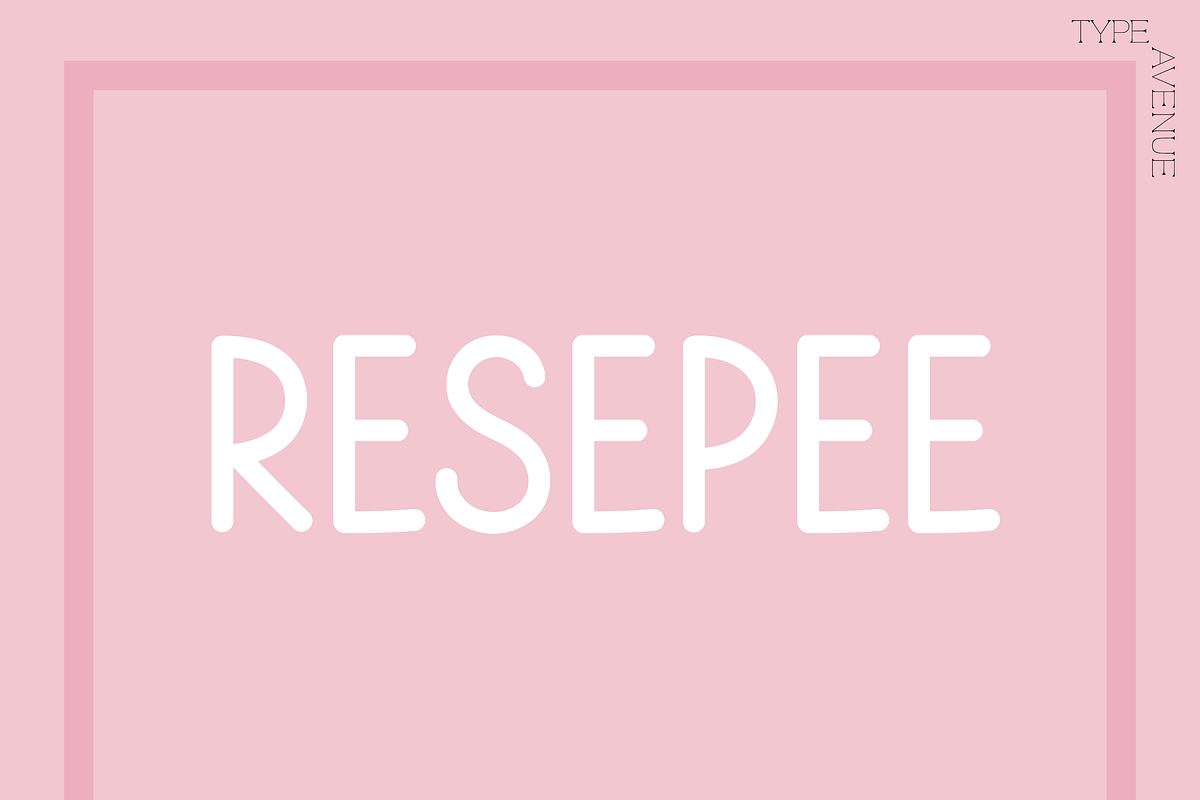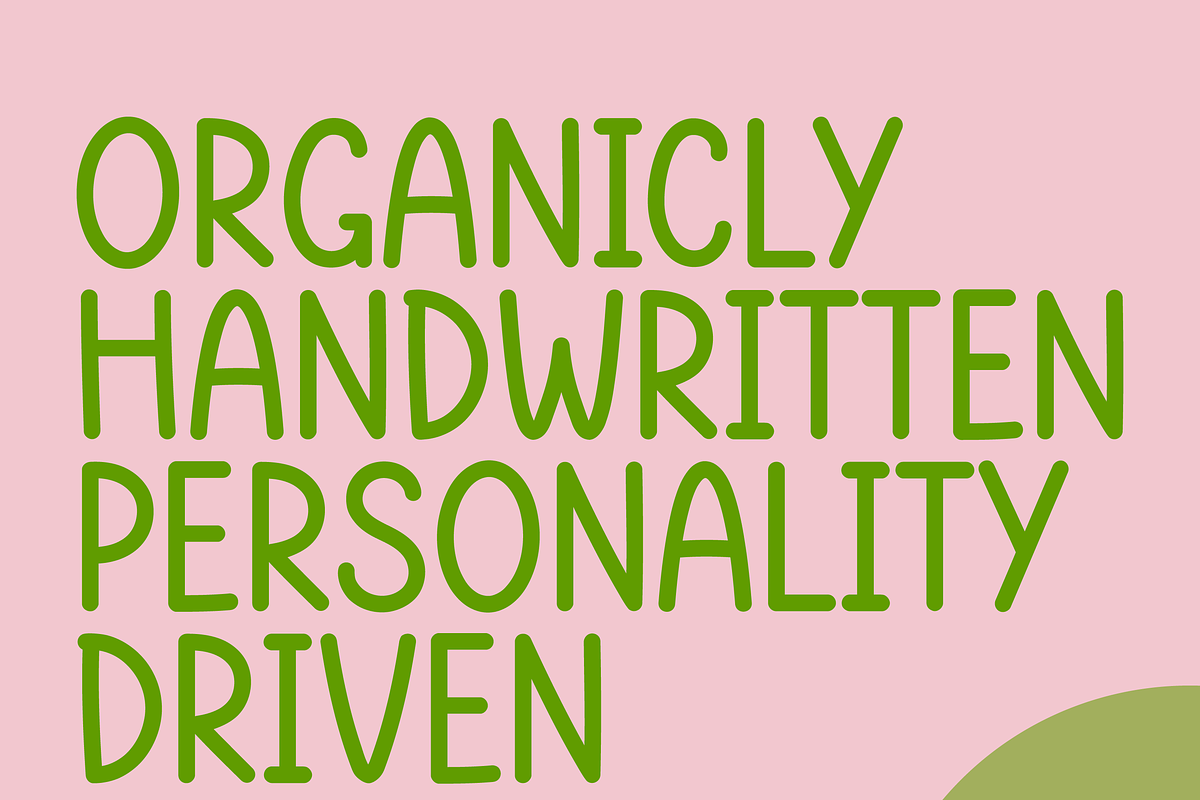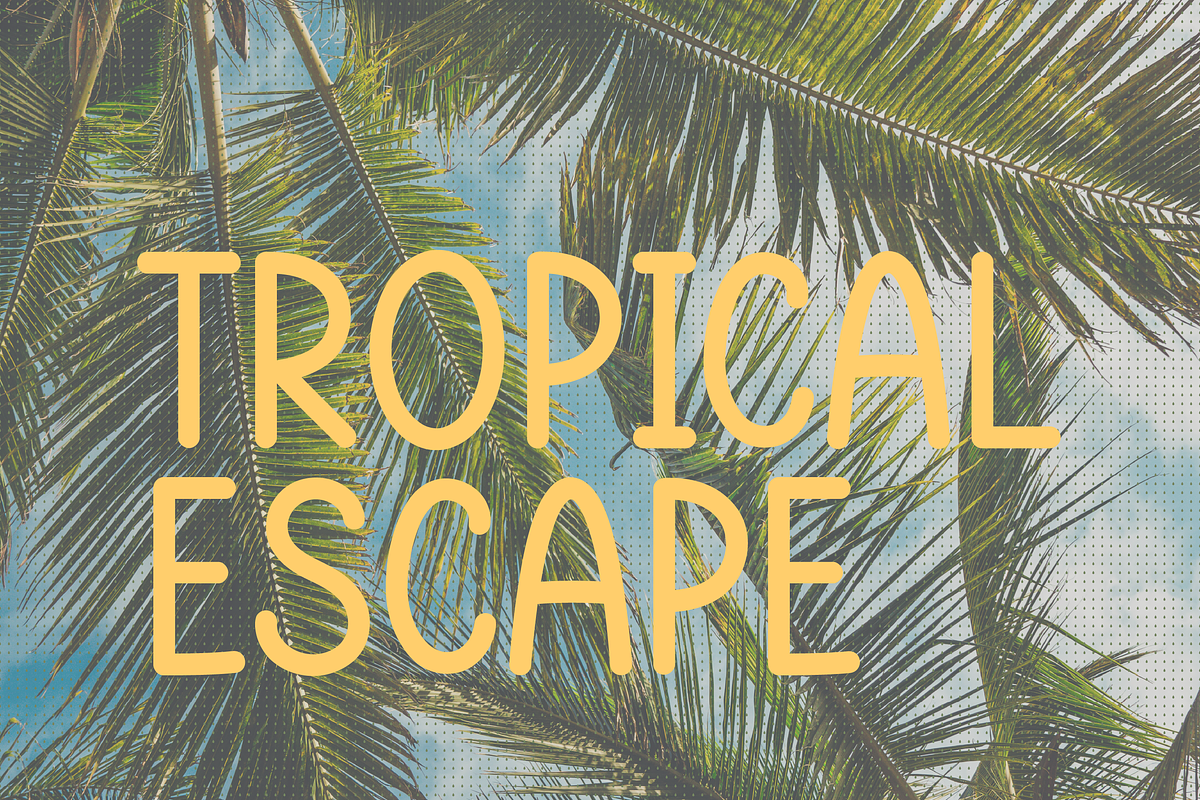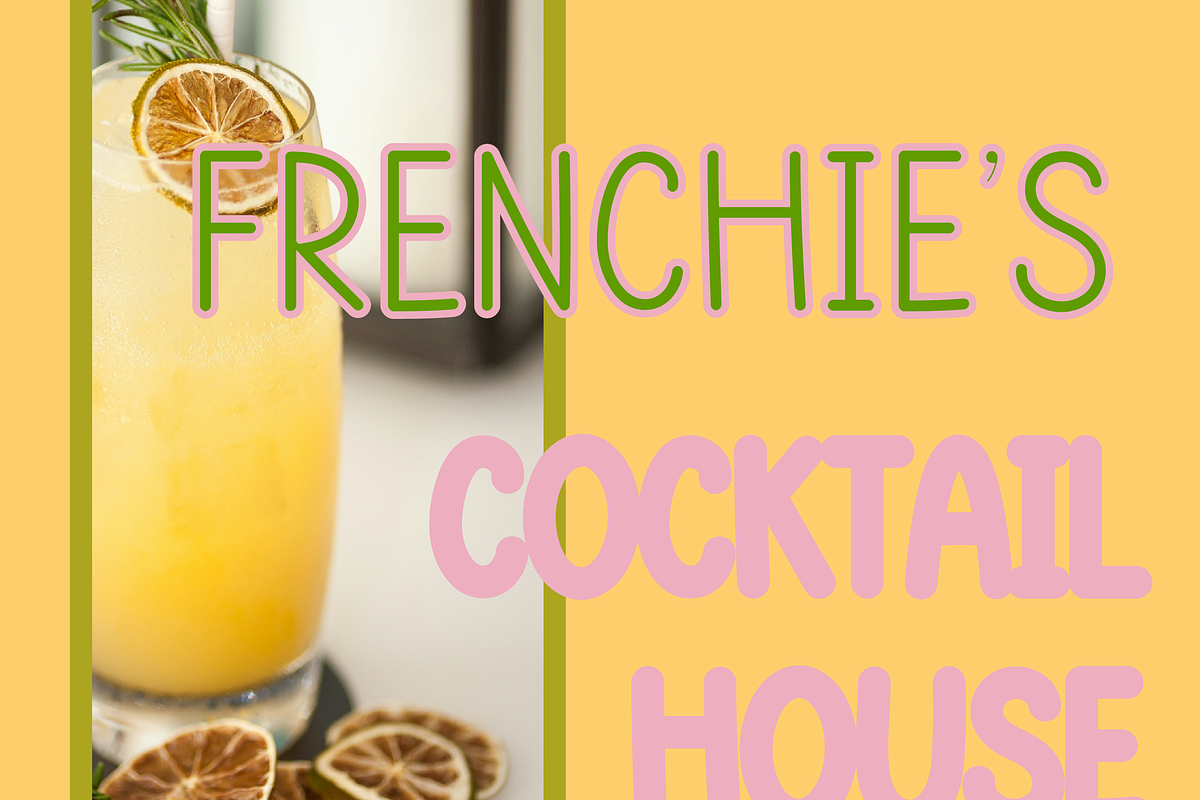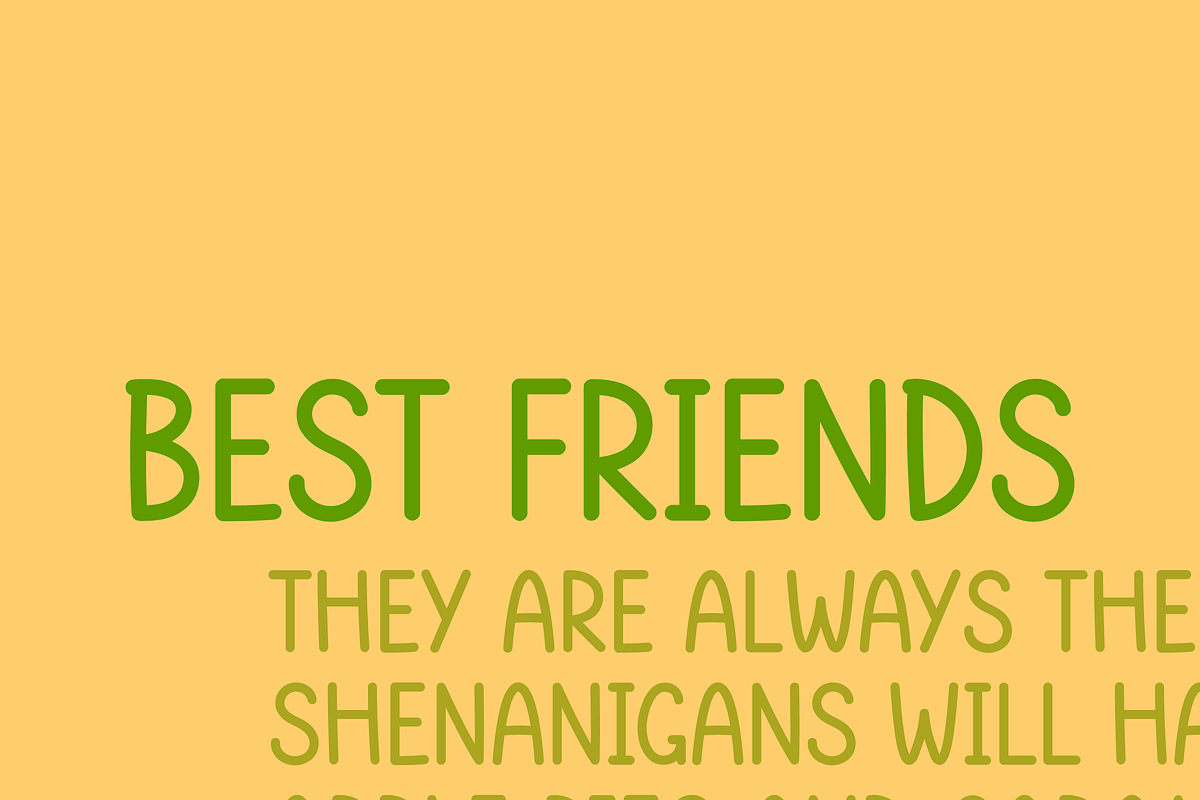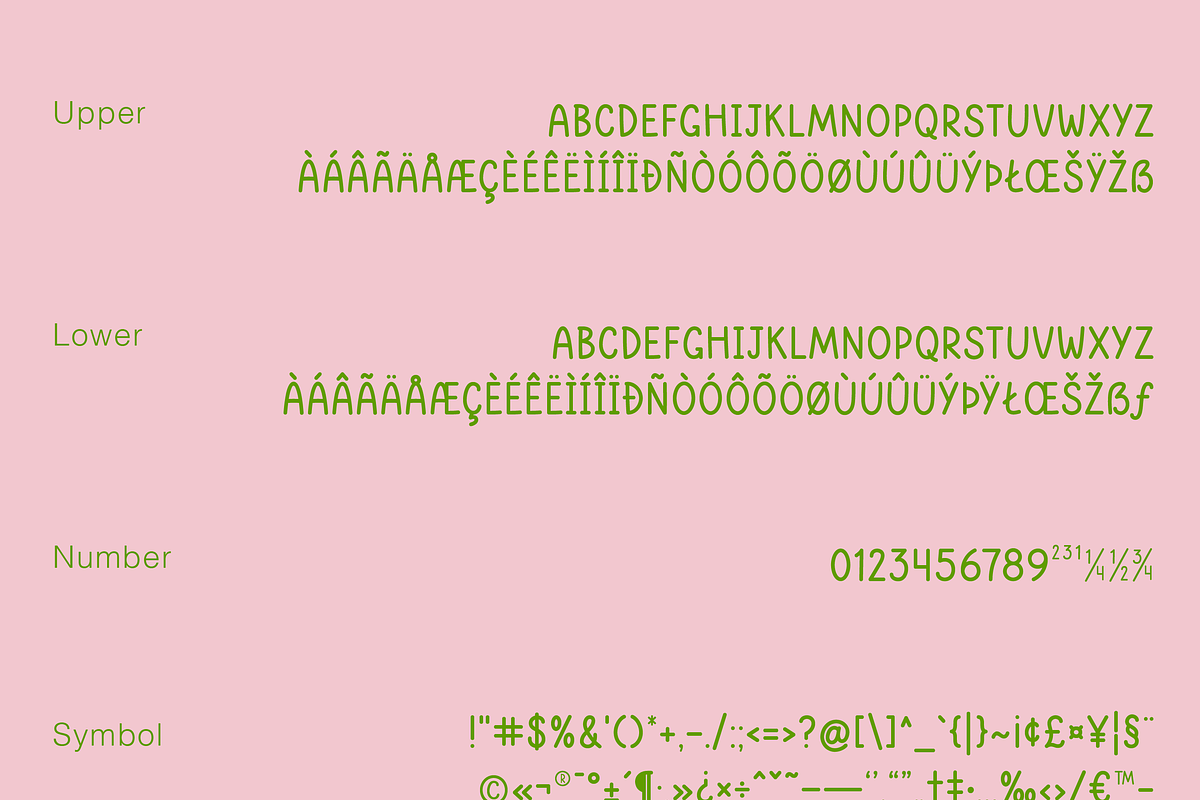
Resepee Font
Resepee is a font made to look like neat handwriting found in a country homemaker’s cookbook. It’s an all-caps font that is perfect for note-taking, labeling, or making posters.